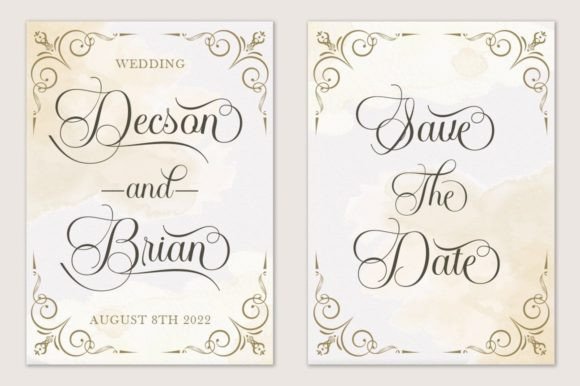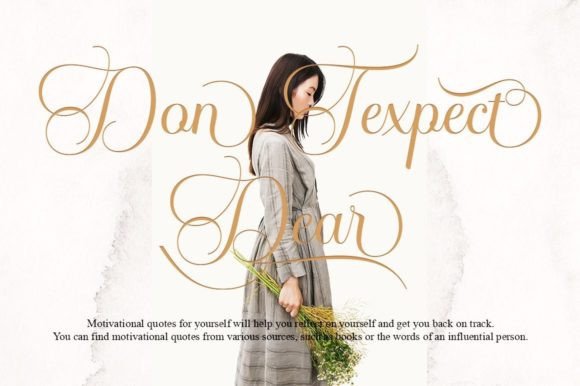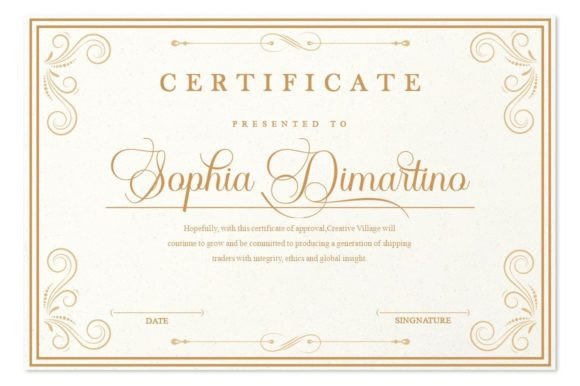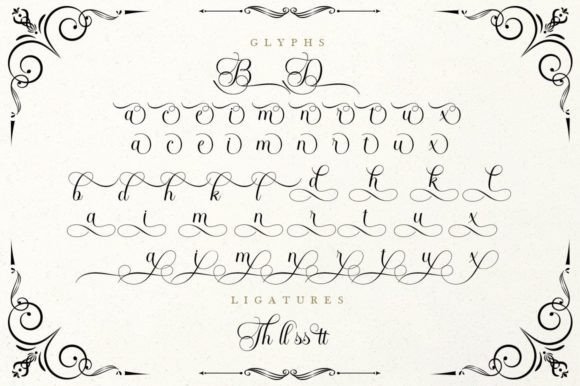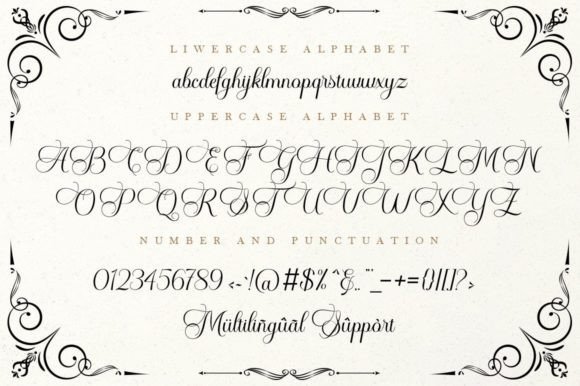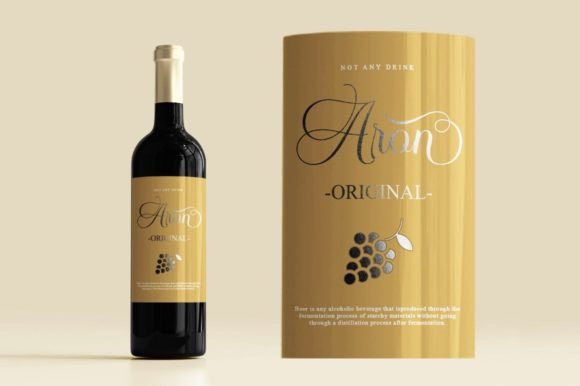
Discover the Elegance of Andalucia Font: A Calligraphic Script Font for Creative Projects
Are you looking for a font that exudes stylish elegance and sophistication? Look no further than the Andalucia Font, a beautiful calligraphic script font that is perfect for a wide range of creative projects. In this article, we’ll explore the features and benefits of the Andalucia Font, and why it’s a must-have for designers and crafters.
What is Andalucia Font?
Andalucia Font is a calligraphic script font that combines the classic style of copperplate calligraphy with the flair of hand lettering. The result is a font that is both subtle and glamorous, with a feminine and sensual touch. The font features beautiful alternate characters, which give it a unique and elegant feel.
Key Features of Andalucia Font
- Calligraphic script font: Andalucia Font is a calligraphic script font that mimics the look of handwriting, giving it a personal and elegant touch.
- Beautiful alternate characters: The font comes with a range of alternate characters, which allow you to add variety and interest to your designs.
- Copperplate calligraphy mixed with hand lettering: The font combines the classic style of copperplate calligraphy with the flair of hand lettering, giving it a unique and stylish feel.
- PUA encoded: Andalucia Font is PUA encoded, which means you can access all of the amazing glyphs and ligatures with ease.
Why Choose Andalucia Font?
Andalucia Font is a versatile font that is suitable for a wide range of creative projects. Here are just a few reasons why you might choose this font:
- Elegant and sophisticated: Andalucia Font has a classic, elegant feel that is perfect for formal projects, such as invitations, labels, and stationery.
- Easy to read: Despite its elegant feel, Andalucia Font is very easy to read, making it perfect for longer projects, such as books and magazines.
- Feminine and sensual: The font has a subtle feminine and sensual touch, making it perfect for projects that require a touch of glamour and sophistication.
- Clean and simple: Andalucia Font is a clean and simple font, which makes it easy to use and versatile.
Use Andalucia Font for Your Creative Projects
Andalucia Font is perfect for a wide range of creative projects, including:
- Invitations: Whether you’re planning a wedding or a formal event, Andalucia Font is perfect for creating elegant and sophisticated invitations.
- Labels and packaging: The font is also great for labels and packaging, adding a touch of elegance and sophistication to your products.
- Menus and stationery: Andalucia Font is perfect for menus, stationery, and other formal documents, such as letterpress and greeting cards.
- Fashion and beauty projects: The font’s feminine and sensual touch makes it perfect for fashion and beauty projects, such as logos, branding, and advertising.
- Romantic novels and magazines: Andalucia Font is also great for romantic novels and magazines, adding a touch of elegance and sophistication to your content.
Tips for Using Andalucia Font
Here are a few tips for getting the most out of Andalucia Font:
- Experiment with alternate characters: The font’s alternate characters are one of its best features, so don’t be afraid to experiment and try out different combinations.
- Use it with other fonts: Andalucia Font pairs well with other fonts, so try combining it with a sans-serif font for a contrasting look.
- Adjust the size and spacing: To get the most out of Andalucia Font, experiment with different sizes and spacing to find the perfect combination for your project.
Andalucia Font is a beautiful calligraphic script font that is perfect for a wide range of creative projects. With its elegant and sophisticated feel, beautiful alternate characters, and PUA encoding, it’s a must-have for designers and crafters. Whether you’re working on a formal project, such as an invitation or a label, or a more creative project, such as a romantic novel or a fashion brand, Andalucia Font is sure to impress.